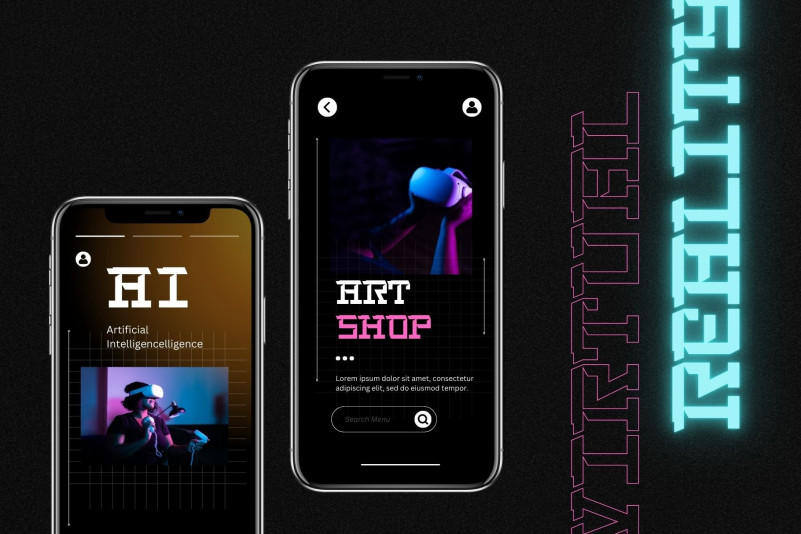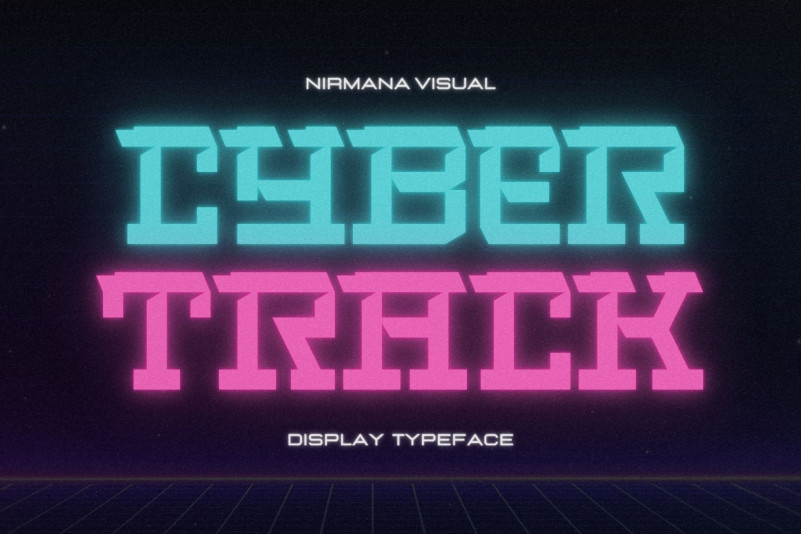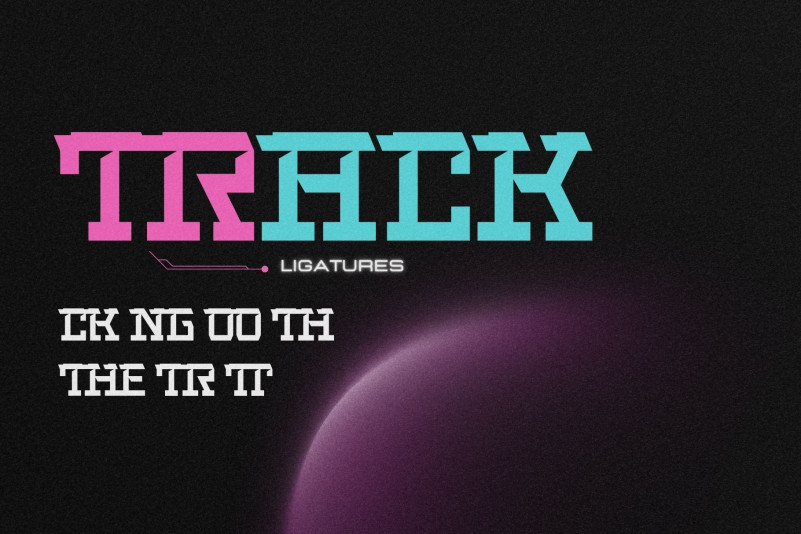
Cyber Track Font
Cyber track – Techno Futuristic Display Typeface, very suitable for the title, logo, typography, clothes, magazines, brochures, packaging and much more for your design needs, making your designs more modern and professional.